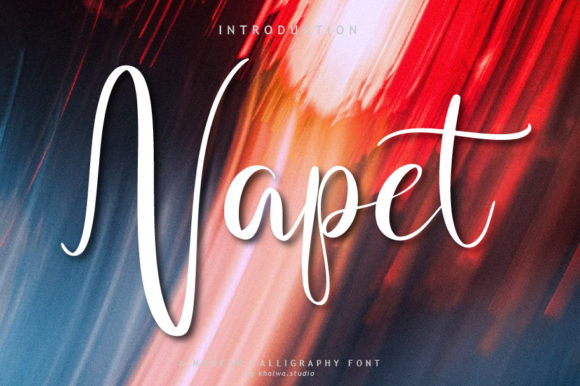
Unleash the beauty and charm of your designs with Napet Script, a captivating handwritten font that exudes timeless elegance. Dive into a world of creativity and let your imagination run wild as you explore the endless possibilities this font holds.
With its graceful curves and sweeping strokes, Napet Script brings a touch of sophistication and personality to any project. Its unique and beautiful touch transforms ordinary words into works of art, adding a personal flair that captures the attention of your audience.
Whether you're a seasoned designer or just starting out, Napet Script is the perfect choice for creating eye-catching logos, branding that speaks volumes, and heartfelt quotes that resonate with your soul. Each letter dances across the page, carrying with it a story waiting to be told.
Step into a world of creativity and let Napet Script ignite your passion for design. Its versatility knows no bounds, allowing you to craft designs that are as unique and captivating as your imagination. Embrace the power of handwritten charm and let your designs leave a lasting impression.